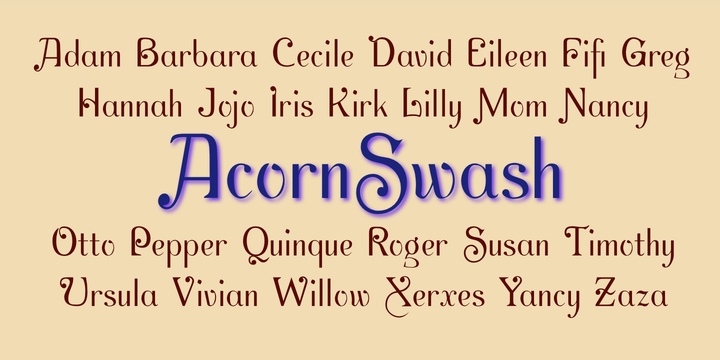
AcornSwash Font
AcornSwash Font is perfect for autumn-themed designs, nature-inspired branding, organic product packaging, rustic wedding invitations, farmhouse decor, seasonal marketing materials, craft fair signage, botanical illustrations, country lifestyle brands, and harvest festival promotions.
What makes AcornSwash Font so exciting is its charming blend of natural elegance and playful sophistication that perfectly captures the warmth and beauty of autumn foliage and woodland environments. This typeface embodies organic charm through its flowing curves and decorative flourishes that mimic the graceful movement of falling leaves and forest breezes. The font's distinctive character stems from its ability to evoke feelings of comfort, natural beauty, and seasonal nostalgia while maintaining excellent readability and professional polish for commercial applications.
AcornSwash Font comes in multiple variations including Regular, Bold, Light, and Ornate styles, featuring an extensive collection of decorative swashes, nature-inspired ligatures, and seasonal ornaments that provide endless creative possibilities for autumn and nature-themed design projects.
Seasonal marketers and nature-focused brands consistently choose AcornSwash Font for projects requiring authentic organic charm and seasonal resonance. Its natural styling makes it particularly effective for farm-to-table restaurants, organic product lines, autumn event planning, and lifestyle brands celebrating rural traditions and natural living. The font's warm personality and decorative elements create immediate emotional connections with audiences seeking authentic, handcrafted experiences while communicating values of sustainability, natural beauty, and seasonal celebration.